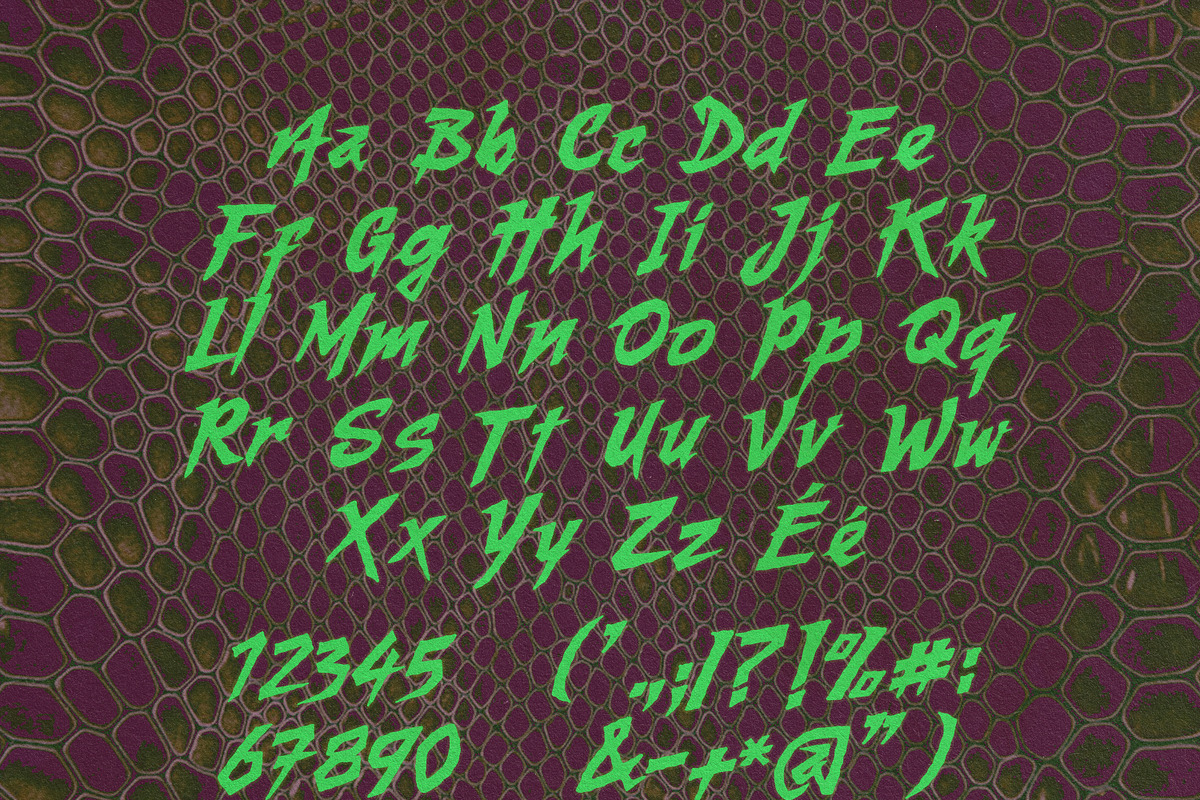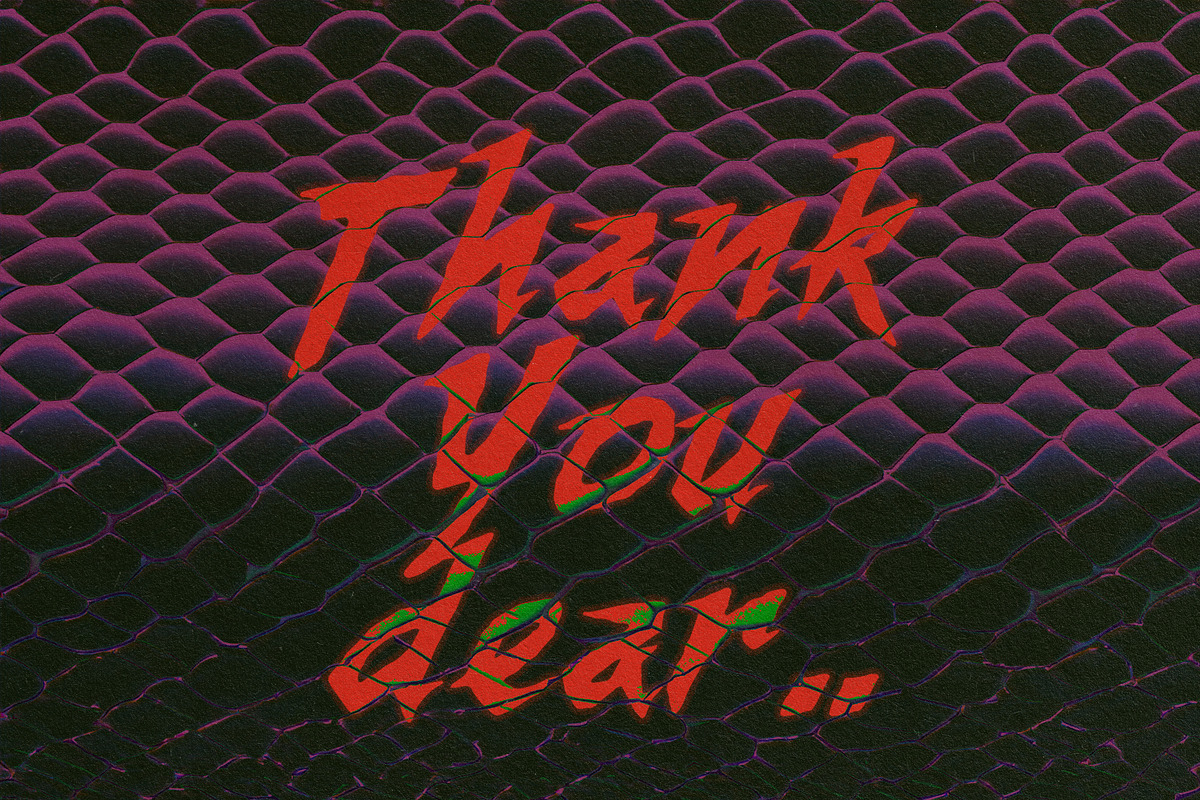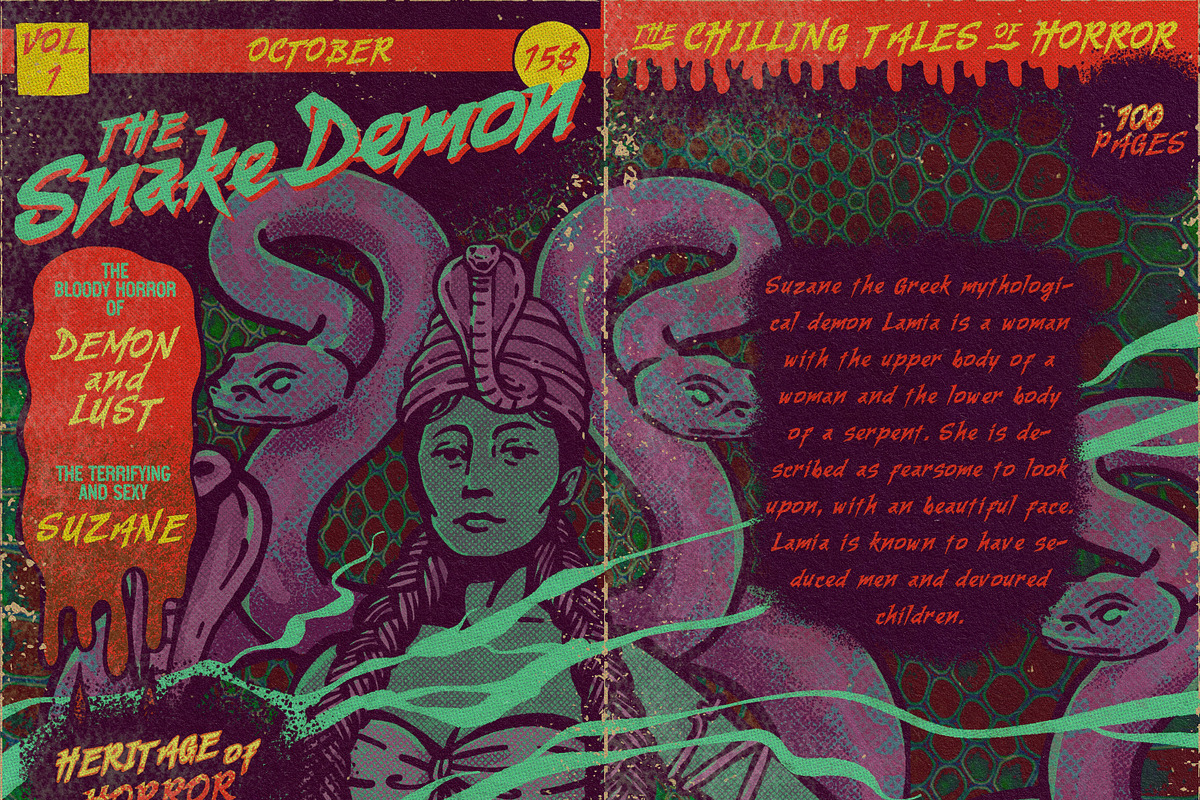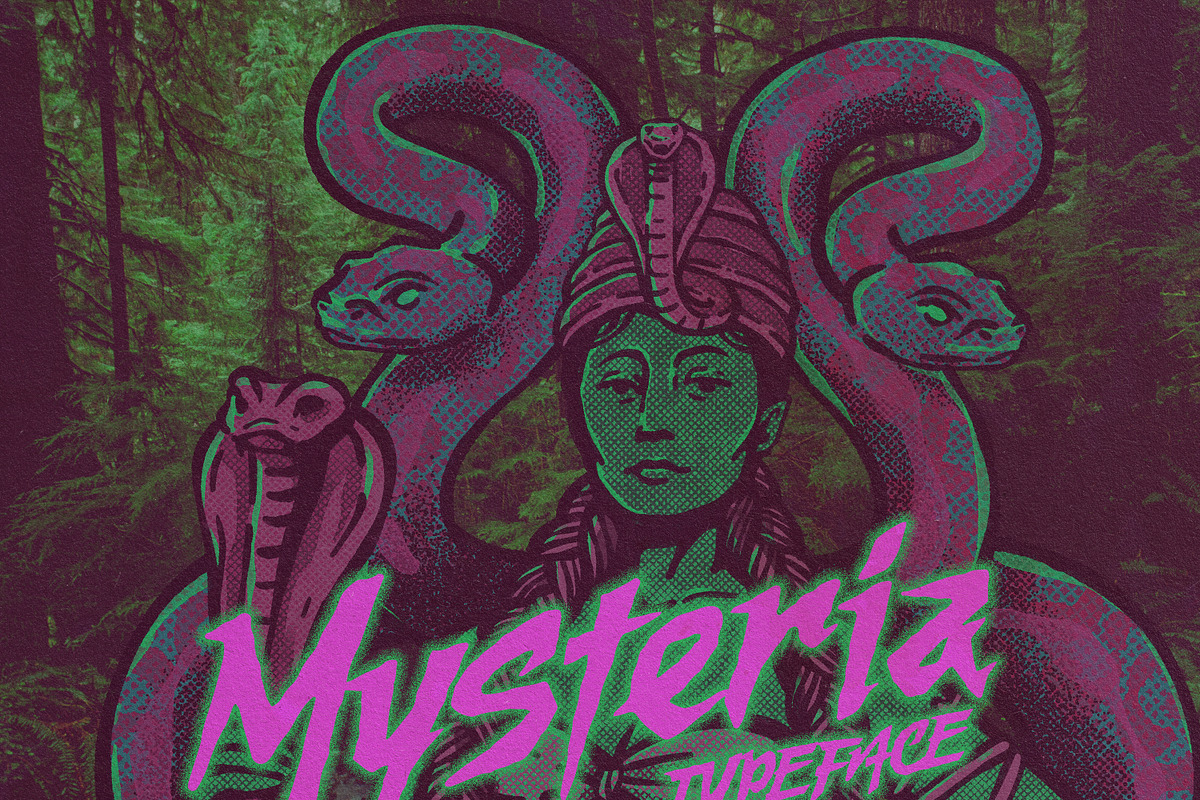
MYSTERIA TYPEFACE
MYSTERIA TYPEFACE. Is a font inspired by Asian Horror movies fonts. Many Asian horror films use distorted or fragmented typefaces that evoke feelings of unease. Fonts may appear cracked or jagged, mimicking the psychological disarray present in the narratives. Very fit and easy to make your awesome product, create label design, logo design, badge design, t-shirt design, posters, greeting cards, letterheads or anything looks like vintage and hand drawn vibes. Also you will get some random illustrations and some editable badge designs. Hope you like it!